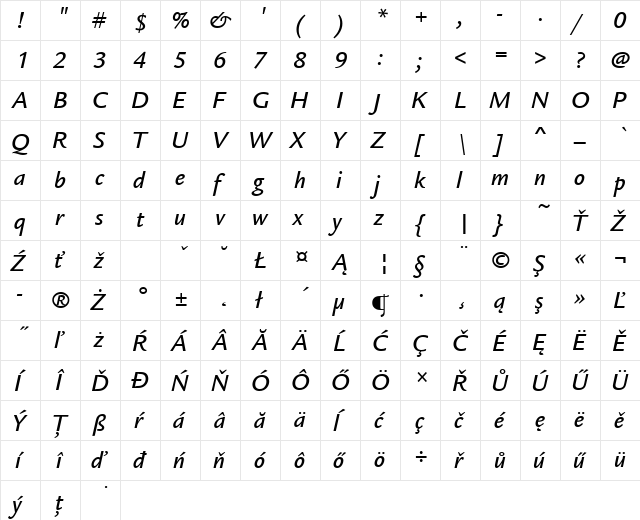
LegacySanItcTEEMed Italic
Design Context for LegacySanItcTEEMed Typeface
LegacySanItcTEEMed is a composed and adaptable typeface that performs quietly and consistently across a wide range of design contexts. Its italic angle brings a sense of urgency and motion to the letterforms.
Pro Tip: Try LegacySanItcTEEMed for annotation and caption copy alongside an upright companion — the contrast in angle creates a dynamic but ordered typographic system.